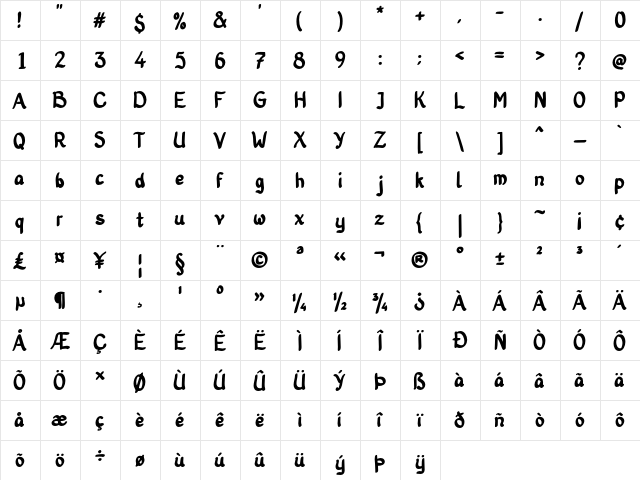
Old Story Bold
Design Context for Old Story Typeface
Old Story is a composed and adaptable typeface that performs quietly and consistently across a wide range of design contexts. Its bold stroke weight gives it real presence on the page.
Pro Tip: Pair Old Story with a font of contrasting weight or personality to build a more expressive typographic hierarchy.